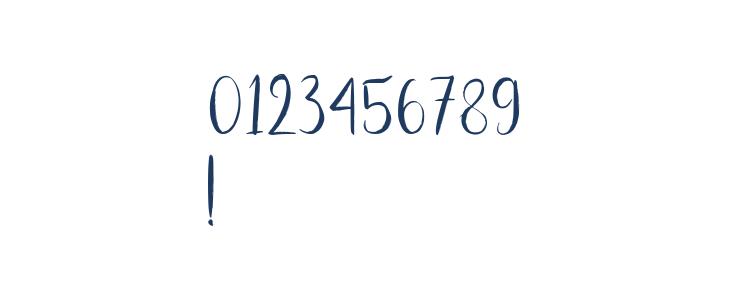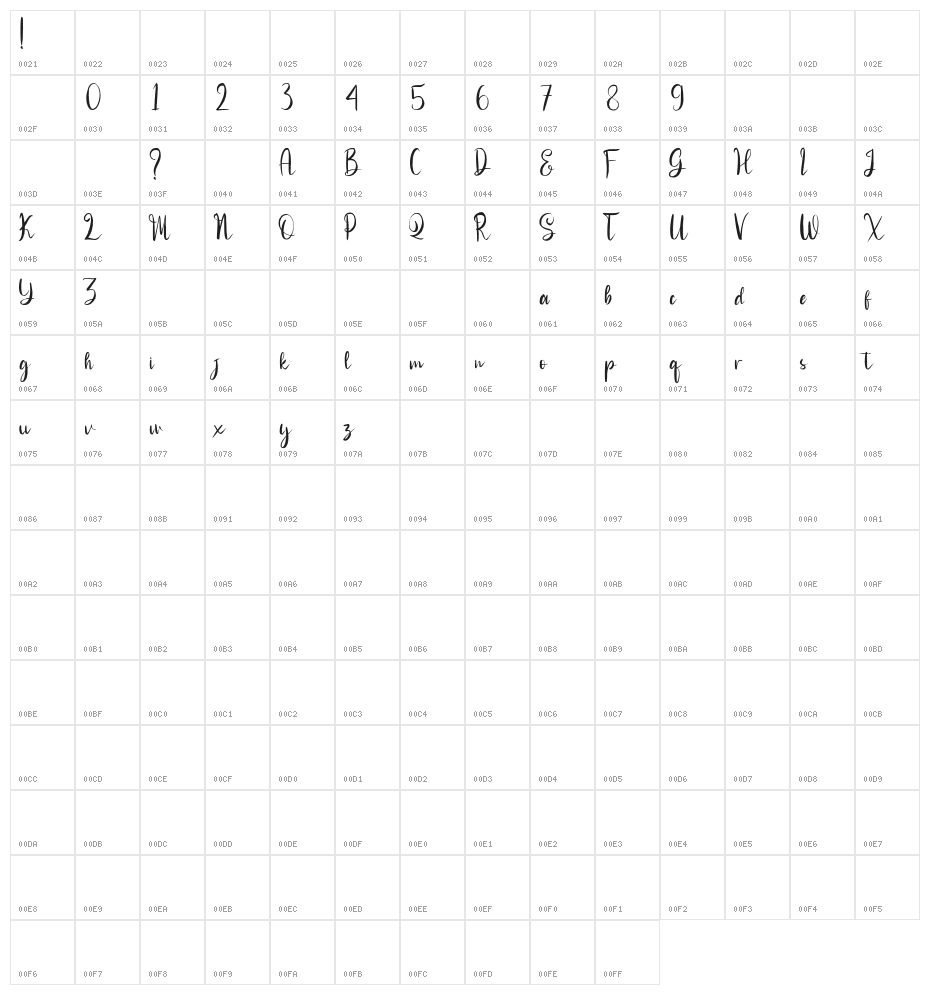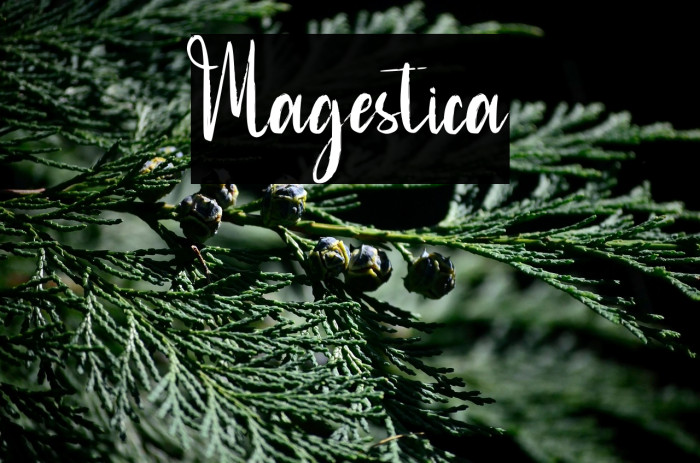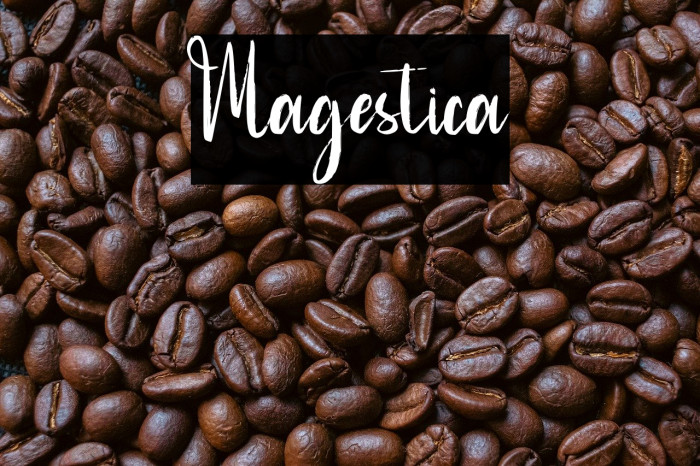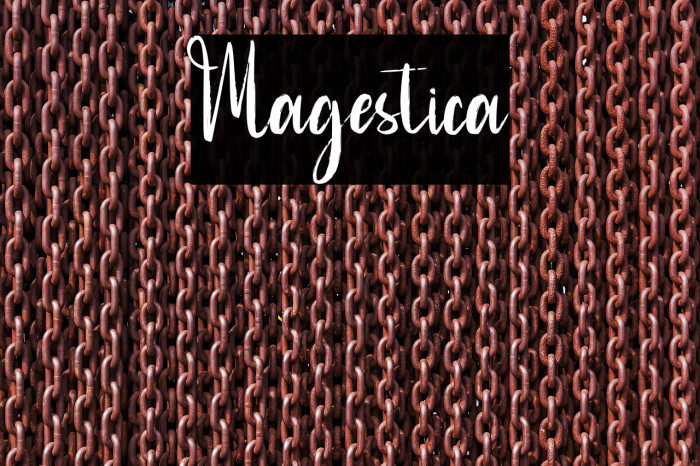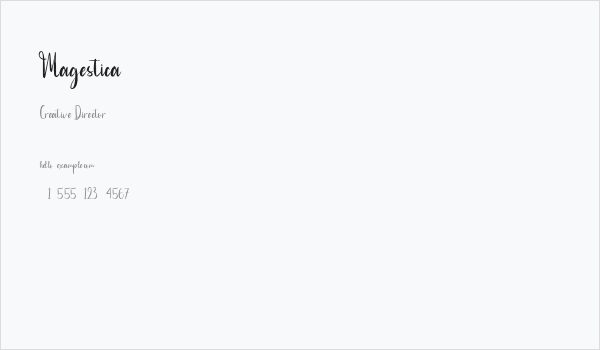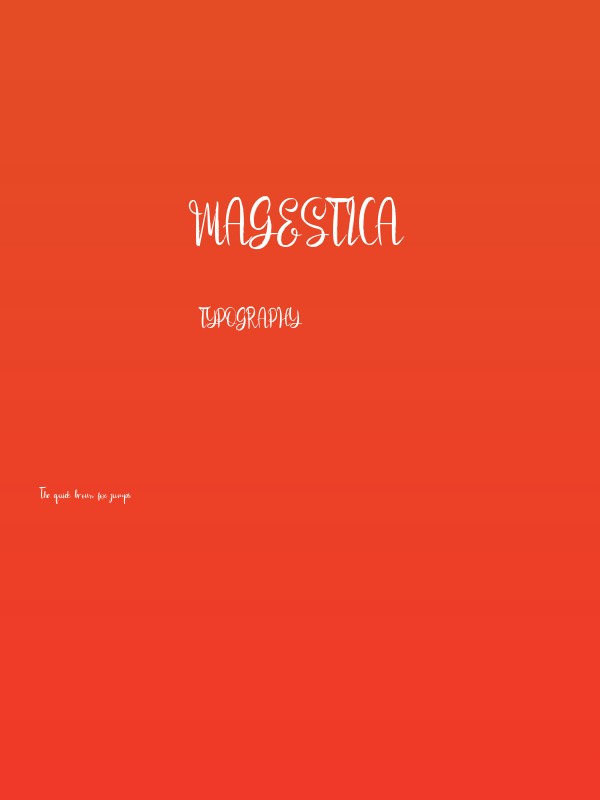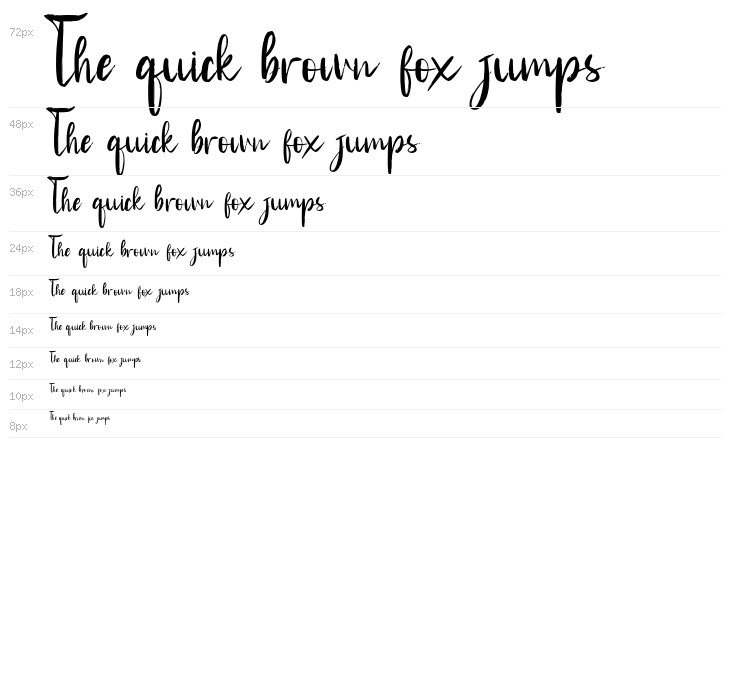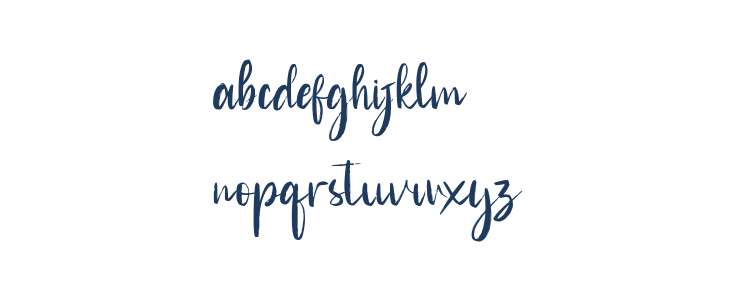
Magestica Font
Magestica Description
This font exudes a dynamic and elegant handwritten style, characterized by its fluid and flowing letterforms. The uppercase letters are bold and expressive, with a slight slant that adds a sense of movement and grace. The lowercase letters maintain a consistent style, complementing the uppercase with their smooth curves and loops. The numerals are distinct and easy to read, while the special characters retain the same artistic flair. Overall, this font combines a modern aesthetic with a touch of classic calligraphy, making it versatile for various design needs.